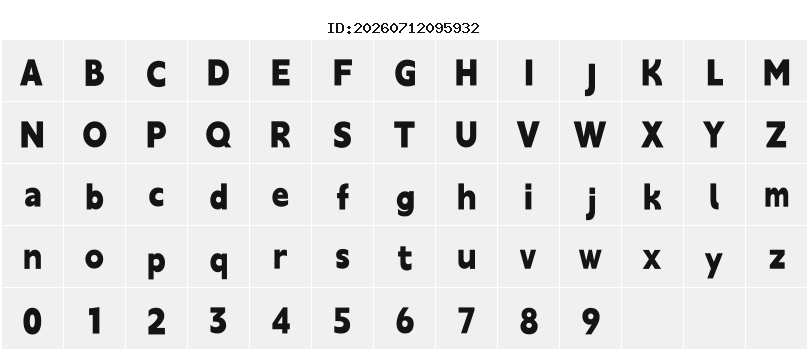
Aa厚底黑 Preview
• Font Name: Aa厚底黑
• Font Style: 常规
• Font ID: 1.000;Aa;AaHouDiHei;2022
• Full Font Name: Aa厚底黑
• PostScript Name: AaHouDiHei
• Character Count: 7909
• Designer: Aa
• Manufacturer: 翰美互通(厦门)科技有限公司
• Description: AaHouDiHei is a fantastic font with excellent features designed for user interfaces and electronic communications.
About Aa厚底黑.ttf
Aa厚底黑.ttf is a modern, elegant sans-serif font designed for ultimate readability and visual harmony. Perfect for branding, headlines, web design, and print materials.